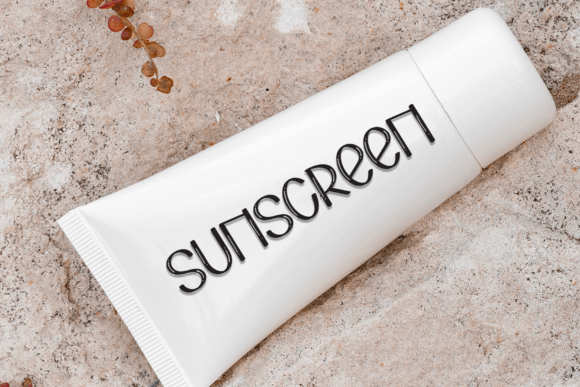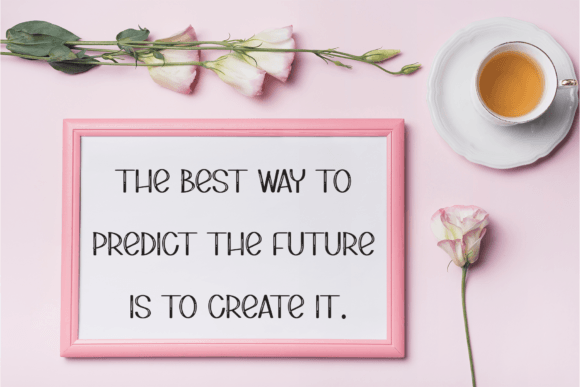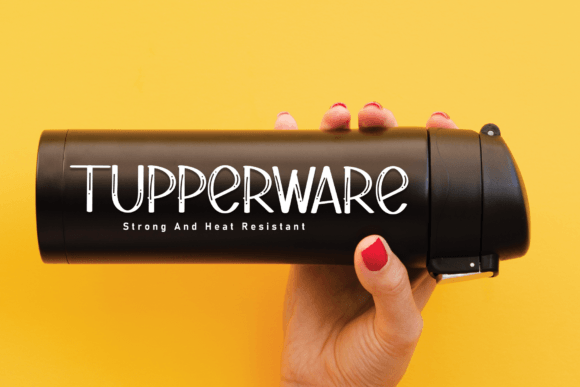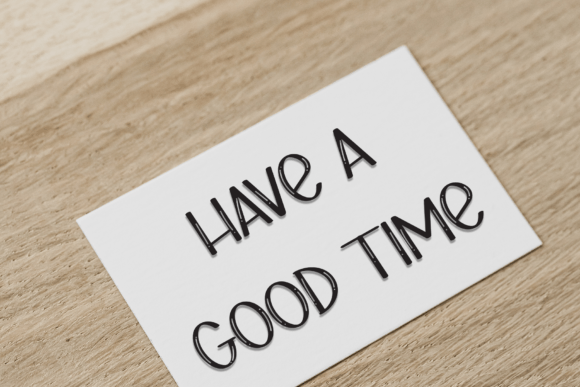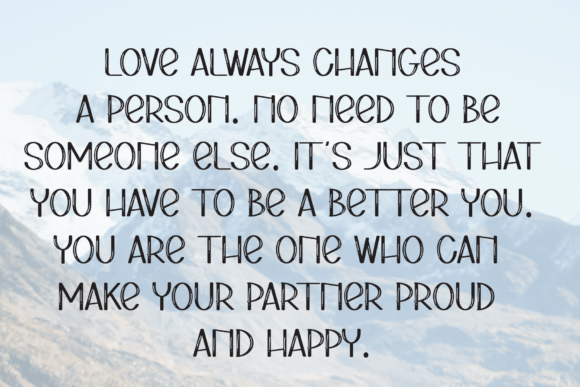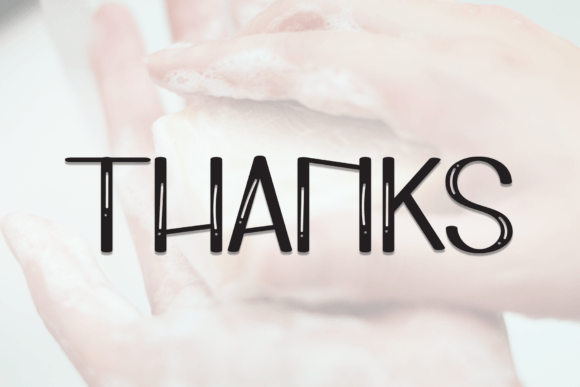
Introduction to Handsoap Font
Introducing an endearing handwritten display font that effervesces with heartfelt charm – perfect for infusing your designs with a sprightly and captivating vibe.
This delightfully playful font adds a whimsical touch to wedding invites, heartfelt messages on cards, and multifarious designs seeking to incorporate an enchanting dash of fun .
Key Features of Handsoap Font
Why Choose Handsoap Font?